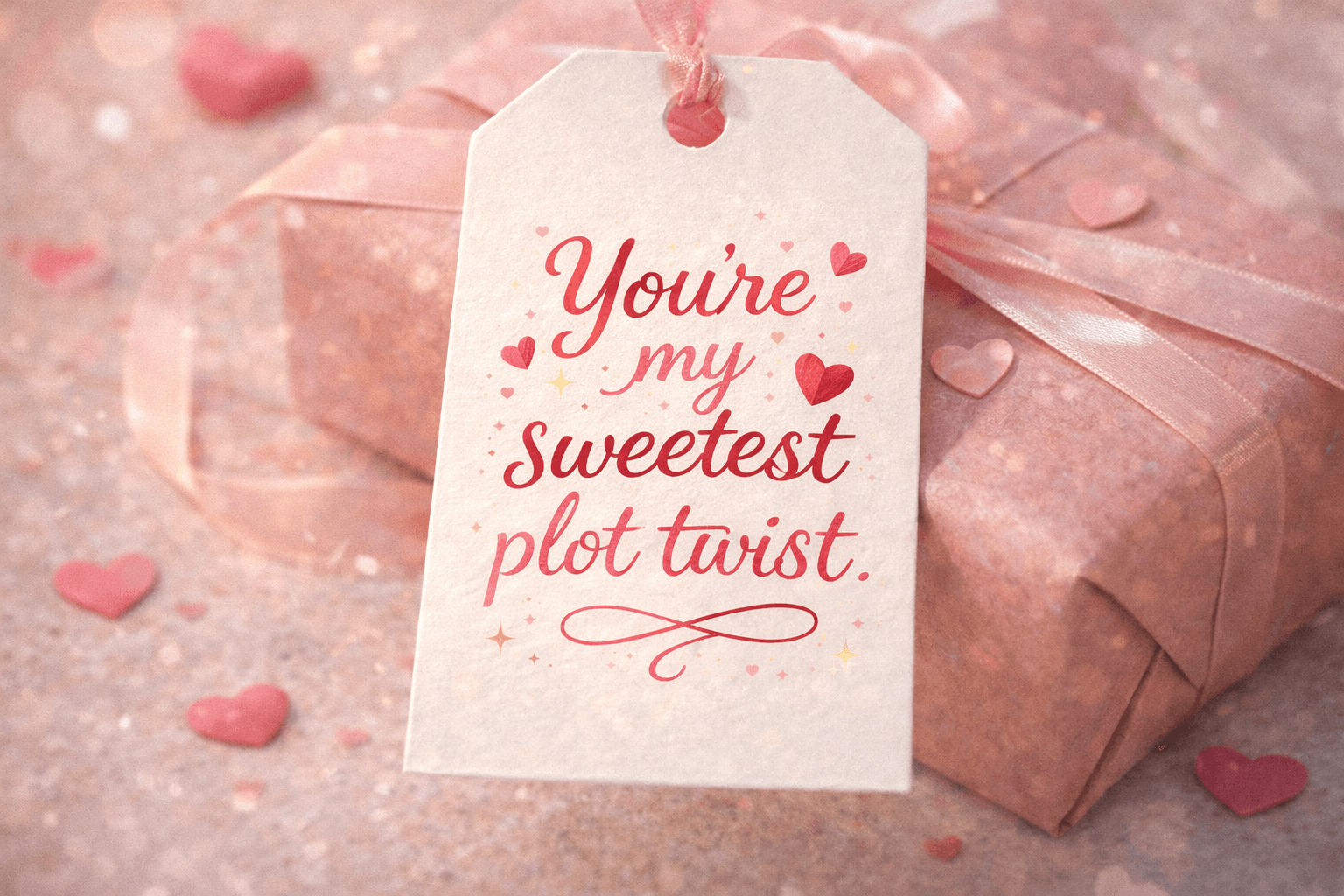
Valentine Quotes for New Couples: Cute and Not Cringe
Valentine quotes for new couples should feel light, honest, and easy to say out loud. When you’re newly together, big “forever” speeches can feel too much, and overly dramatic lines can land weird. The best valentine quotes for new couples are simple and specific. They sound like you, not like a movie trailer. And if you’re a creator making Valentine content, the right typography can keep the vibe cute and modern instead of cheesy.
Below you’ll find copy-ready quotes, short messages, and caption ideas, plus practical font pairing suggestions for cards, Reels covers, Pinterest pins, and printable designs.
How to Valentine Quotes for New Couples Keep it Cute, Not Cringe
Before the list, here’s a quick filter. The most shareable valentine quotes for new couples usually have at least one of these traits:
• Small and true: one clean idea, no over-promising
• Playful: a tiny joke or wink
• Specific: a detail that feels personal
• Calm confidence: sweet without being loud
A fast “not cringe” formula
Use one of these patterns:
• “I like you. A lot.” (simple)
• “You make ordinary days better.” (specific feeling)
• “I’m happy it’s you.” (gentle certainty)
Now, the fun part.
Short Valentine Quotes for New Couples
These are perfect for a first card, a gift tag, or a quick text.
1. “I’m really glad we found each other.”
2. “You feel like a happy surprise.”
3. “This is my favorite kind of beginning.”
4. “I like you more every time I see you.”
5. “You make my days softer.”
6. “You’re my favorite notification.”
7. “I’m smiling because of you.”
8. “I’m into us.”
9. “You just make sense.”
10. “You’re the good part of my day.”
11. “My heart is calm with you.”
12. “You’re my sweetest plot twist.”
13. “You make the little things fun.”
14. “You’re easy to love.”
15. “I’m lucky we met when we did.”
16. “You’re my favorite kind of yes.”
17. “I’m happy it’s you.”
18. “You’re my new favorite habit.”
19. “Let’s keep going.”
Example Short Valentine Quotes for a Gift Tag
Cute Valentine Quotes for New Couples (sweet but chill)
These feel affectionate without sounding intense.
1. “I didn’t plan this, but I’m so glad it happened.”
2. “Being with you feels easy, in the best way.”
3. “You make my world feel a little brighter.”
4. “I like the way we’re becoming ‘us.’”
5. “You make me feel wanted and safe.”
6. “You’re my favorite place to be lately.”
7. “I love getting to know you.”
8. “You’re the kind of person I want to keep.”
9. “Thanks for being sweet to me.”
10. “I’m excited about what we’re building.”
11. “You’re the best part of my week.”
12. “I’m grateful for your time and your heart.”
13. “You make me laugh, and I needed that.”
14. “I feel more myself around you.”
15. “You’re a good thing happening to me.”
16. “I like our pace. I like our vibe.”
17. “You’re the soft part of my day.”
18. “Thank you for choosing me, even a little.”
19. “I’m still learning you, and I love that.”
20. “You feel like home, but new.”
Funny Valentine Quotes for New Couples (playful, not mean)
Flirty jokes that keep it light.
1. “Is it too early to say I’m obsessed with you? Cool.”
2. “Happy Valentine’s Day to my favorite human.”
3. “I like you more than my couch. That’s serious.”
4. “I’m not clingy. I’m just… really into you.”
5. “You’re my type. Clearly, I have good taste.”
6. “Thanks for being cute and tolerating me.”
7. “You’re the reason I keep checking my phone.”
8. “I would share my fries with you. Maybe.”
9. “I’m glad you like me, because wow.”
10. “We’re cute. I don’t make the rules.”
11. “You’re my favorite distraction.”
12. “You had me at ‘hey.’”
13. “I’m into you. Please don’t be weird about it.”
14. “My heart said yes. My schedule said also yes.”
15. “New couple energy: unlocked.”
16. “I like you. Please don’t stop.”
17. “You’re my favorite kind of trouble.”
18. “I’m keeping you.”
19. “I choose you. And snacks.”
20. “This is me flirting responsibly.”
Valentine Quotes for New Couples for Cards
If you’re writing a card, these give you a full message that still feels natural.
1. “Happy Valentine’s Day. I’m really happy we’re doing this.”
2. “I love how easy it feels to be with you. I’m excited for what’s next.”
3. “You’ve been such a bright part of my life lately. I’m grateful for you.”
4. “This is our first Valentine’s, and I’m genuinely smiling writing this.”
5. “I like you a lot. I love getting to know you more every day.”
6. “You make me feel seen. Thank you for being you.”